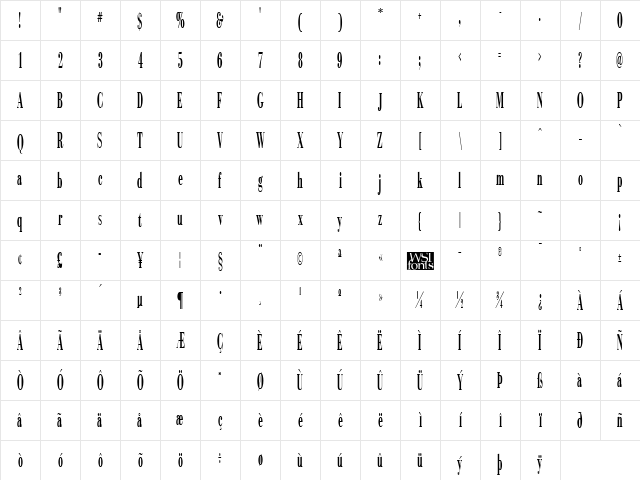
Compass Regular Free Font
Compass Regular
Compass Family
Compass Regular
Design Context for Compass
Compass is a composed and adaptable typeface that performs quietly and consistently across a wide range of design contexts.
Pro Tip: Use Compass in both headline and body roles to test its range before committing to a single application.